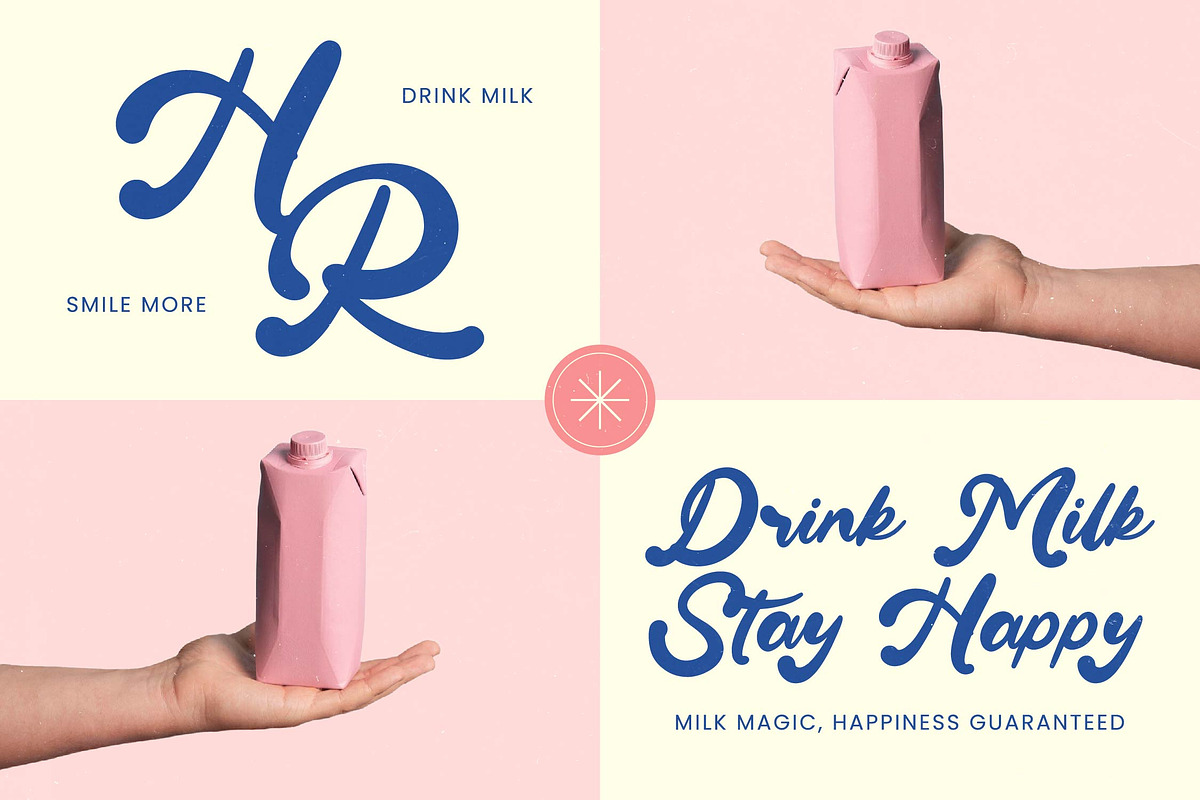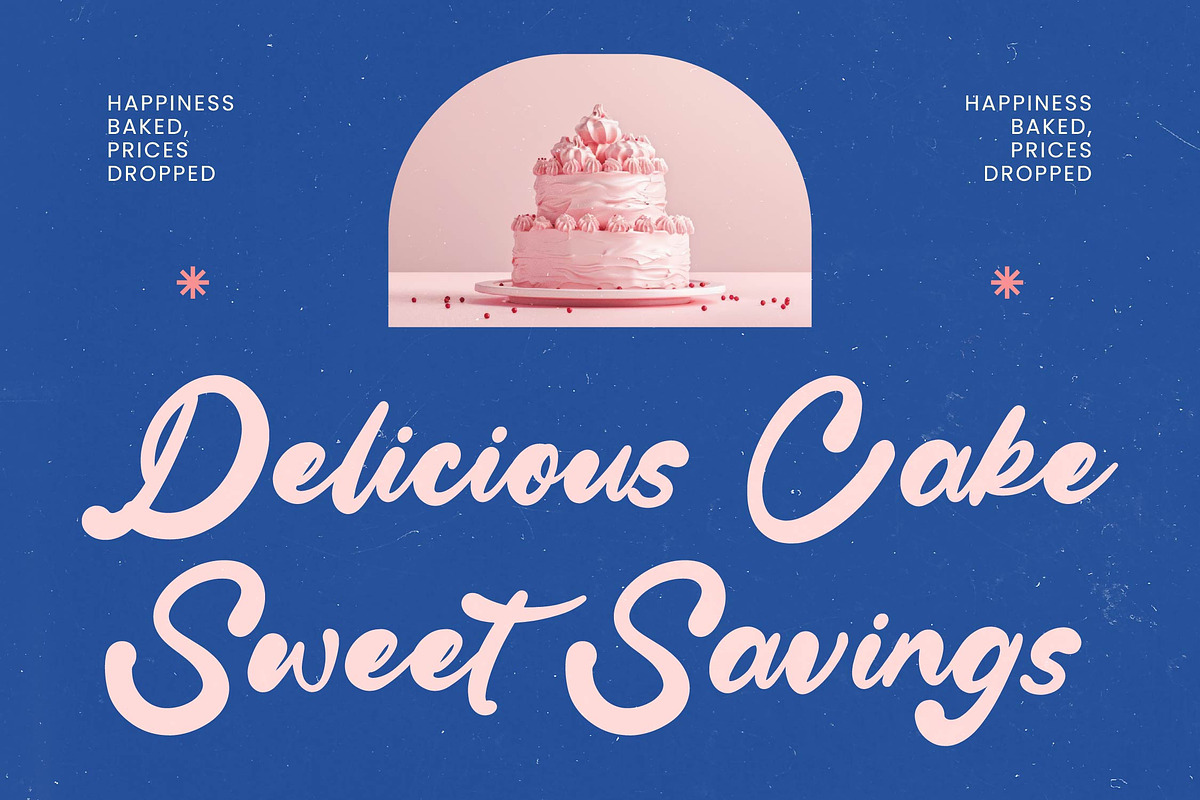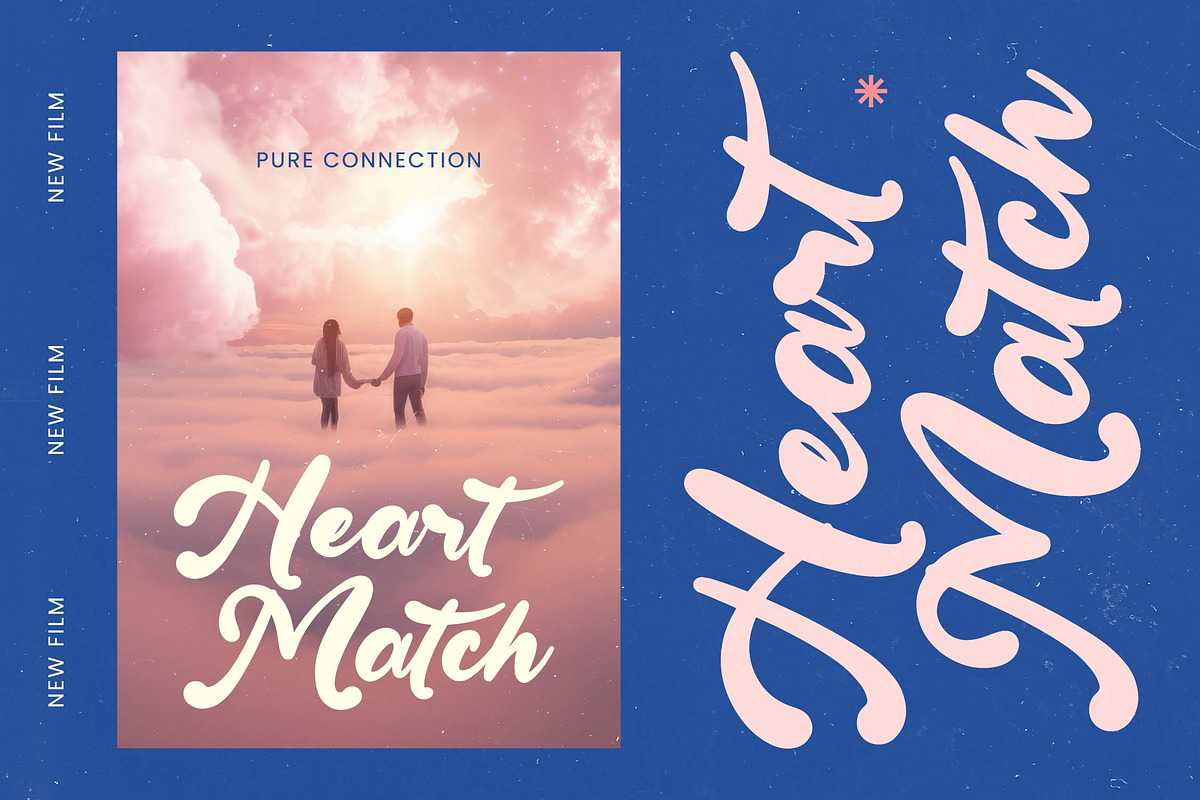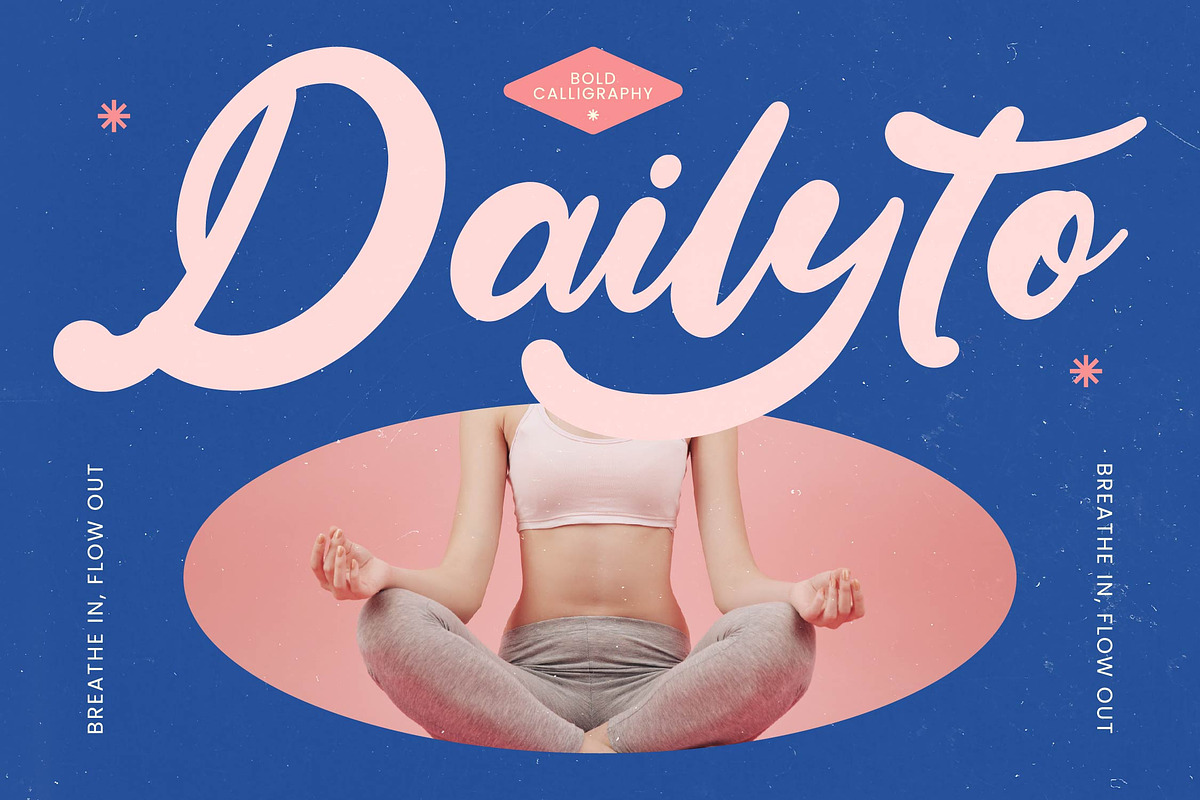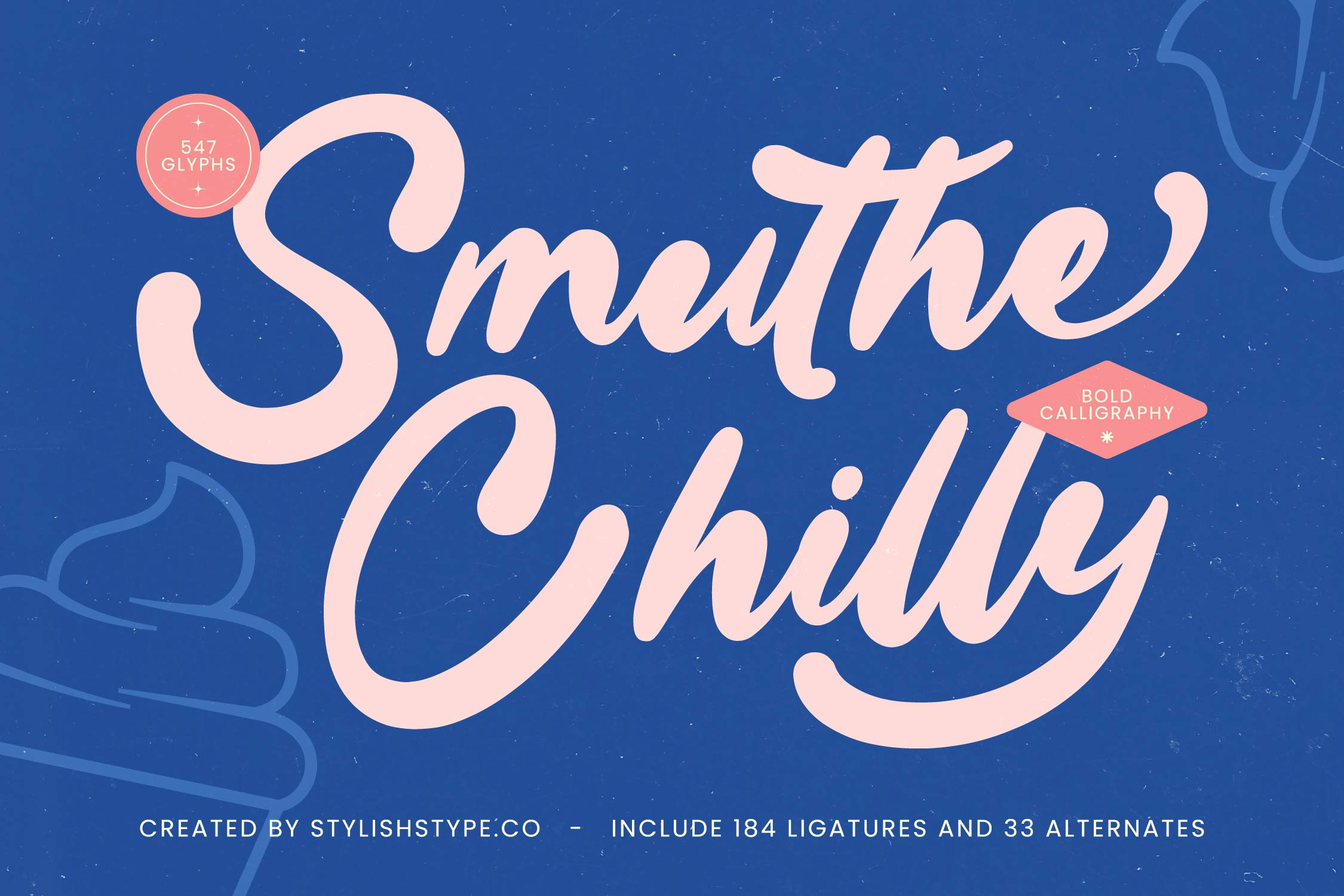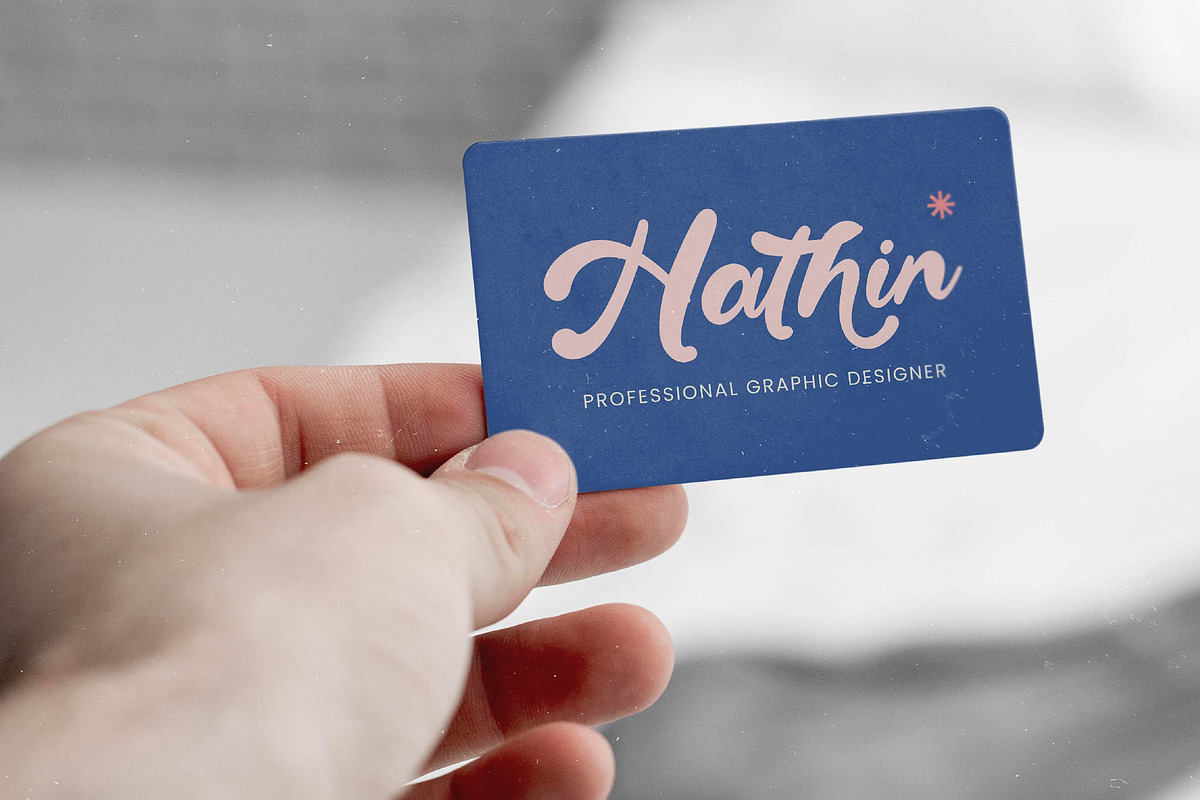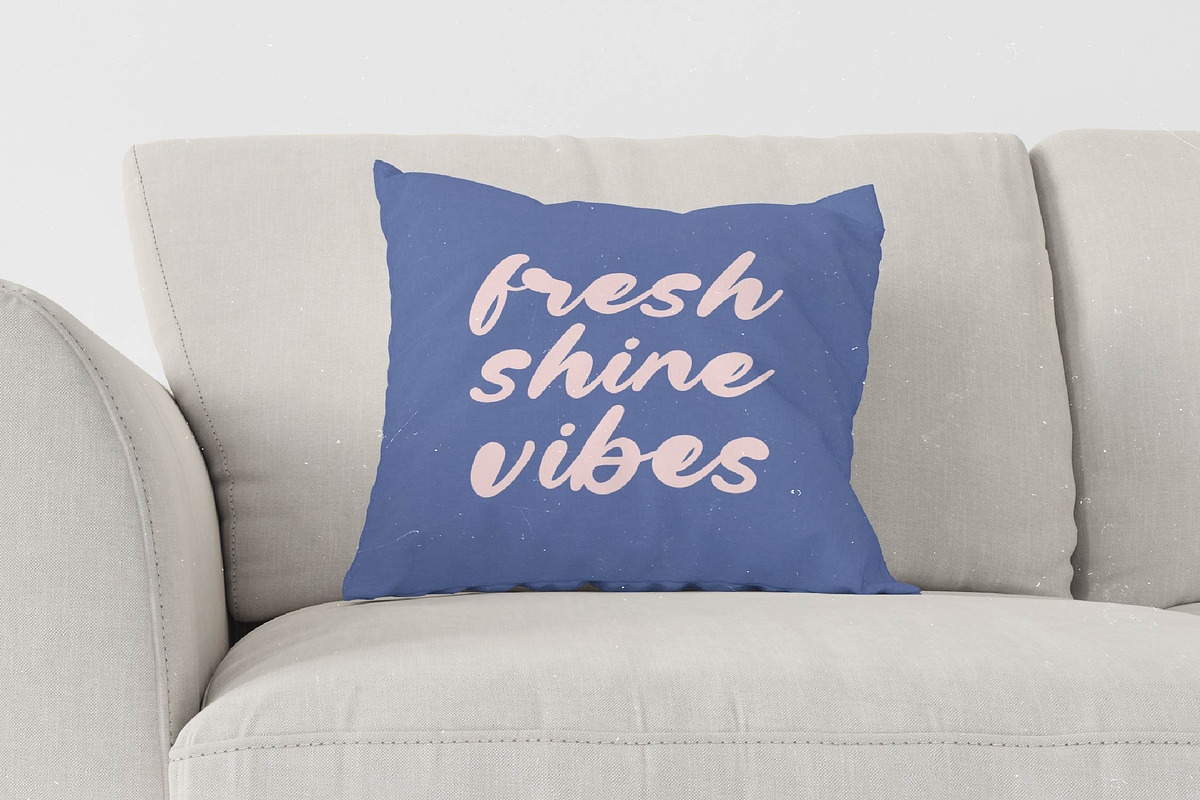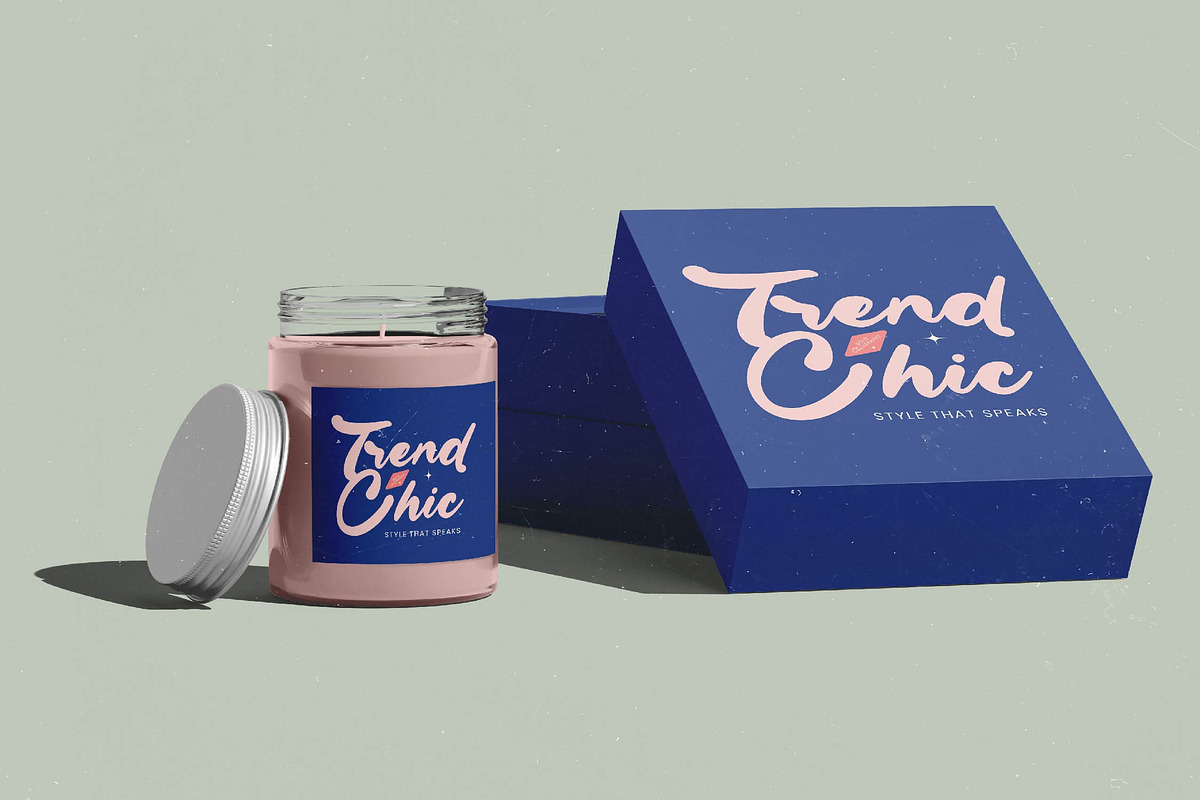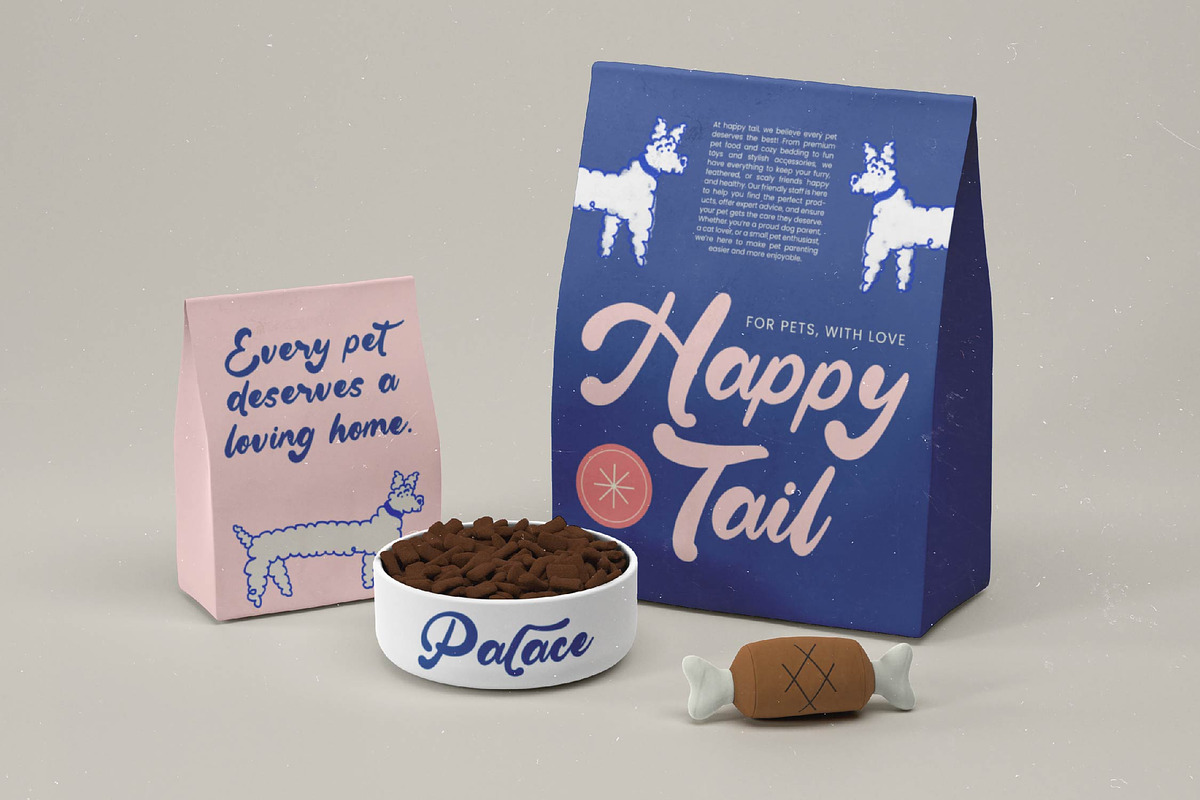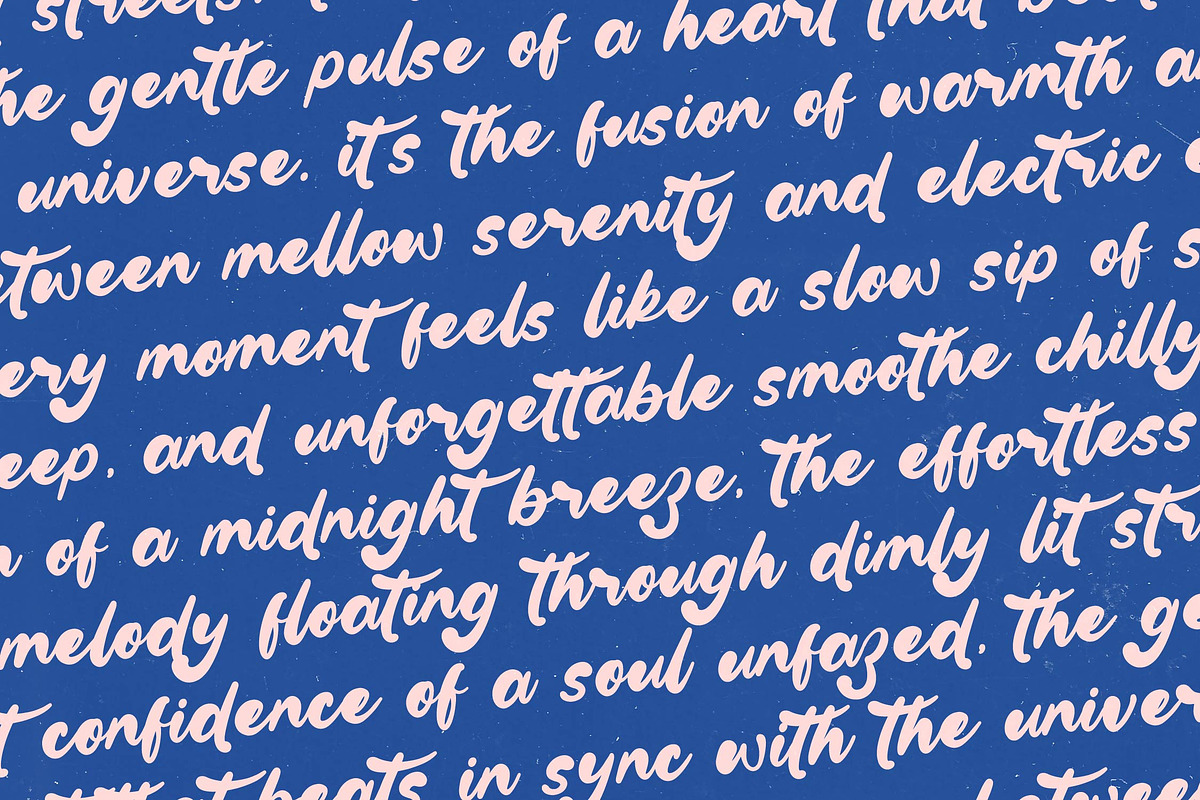
Smuthe Chilly Bold Calligraphy Font
Smuthe Chilly - Bold Calligraphy Font , from Stylishtype.Co , Suitable for any projects such as: logos, branding projects, homeware designs, product packaging, mugs, quotes, posters, shopping bags, t-shirts, book covers, name card, invitation cards, greeting cards, label, photography, watermark, special events, and all your other luxury and beautiful projects that need a Luxury Script taste.
- 184 Ligature 33 Alternates & Swashes